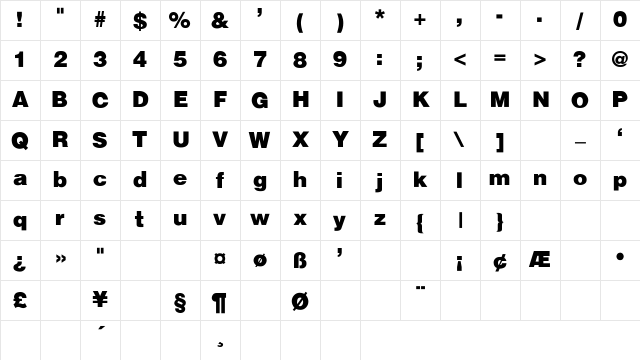
Partridge-Black-SemiBold Regular
Design Context for Partridge-Black-SemiBold
Partridge-Black-SemiBold is a composed and adaptable typeface that performs quietly and consistently across a wide range of design contexts. Its bold stroke weight gives it real presence on the page.